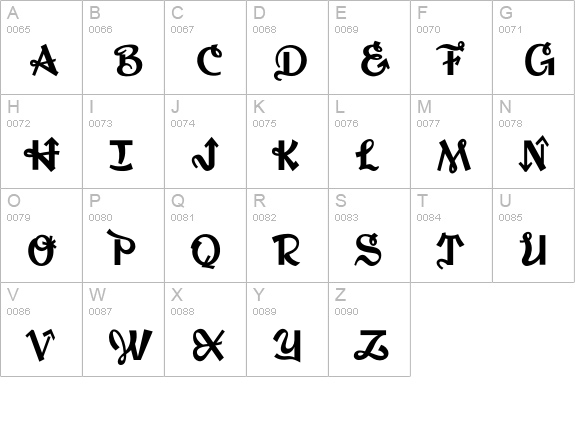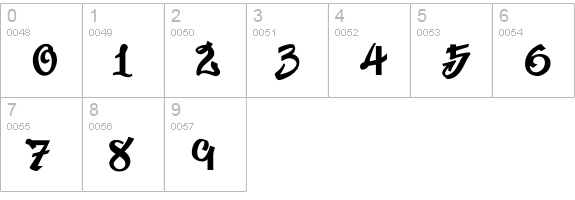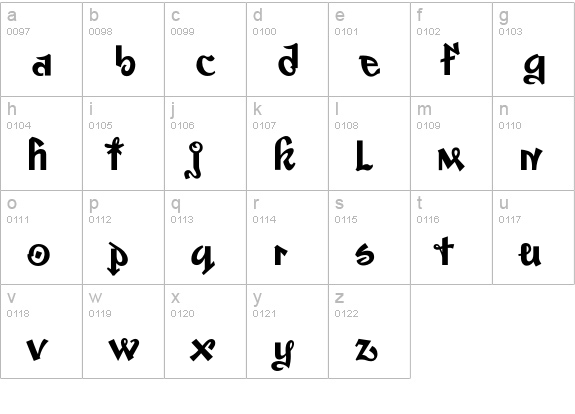
Graffiti Font Details
Introducing the edgy and urban Graffiti font, a versatile typeface that brings a street art vibe to your designs. This font captures the raw energy and expressive style of graffiti lettering, making it perfect for projects that require a bold and rebellious touch. With its unique and dynamic characters, Graffiti font adds a contemporary flair to posters, flyers, logos, and more. Best of all, Graffiti font is available for free download at FontsMarket.com. Whether you're a graphic designer, artist, or hobbyist looking to add some urban flair to your creations, this font is a must-have in your toolkit. Embrace the spirit of the streets with Graffiti font and make a statement with your designs today!